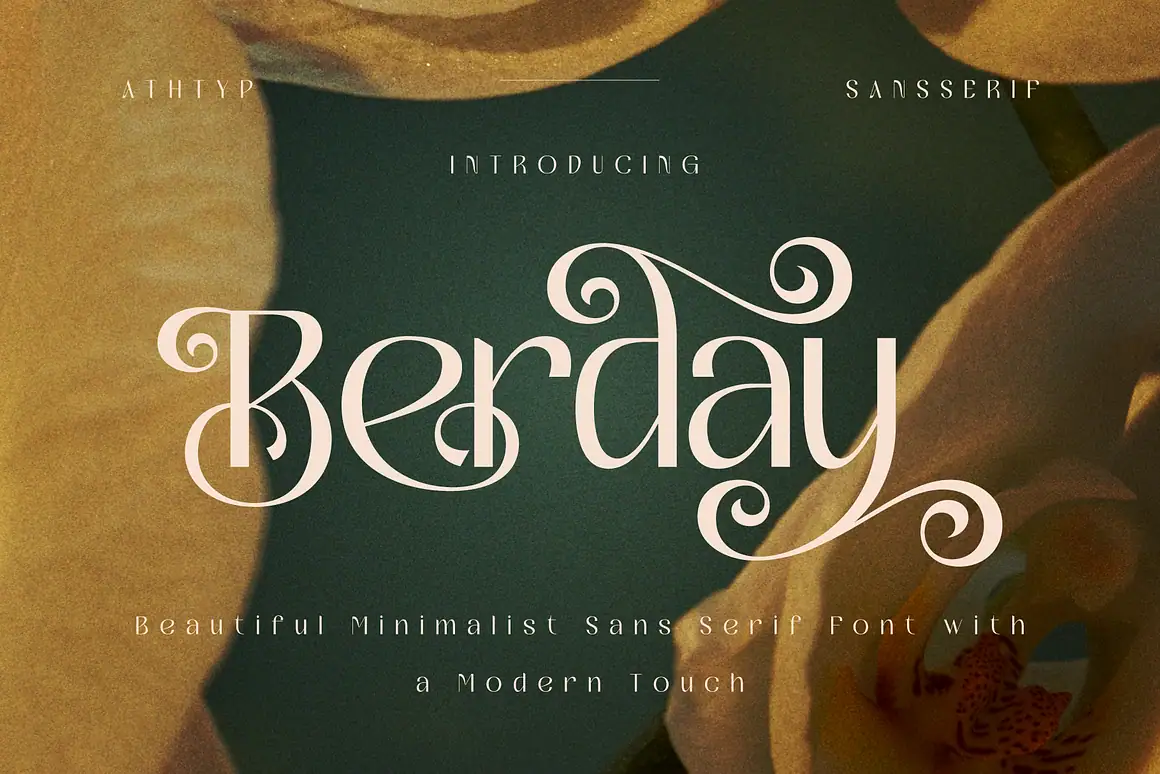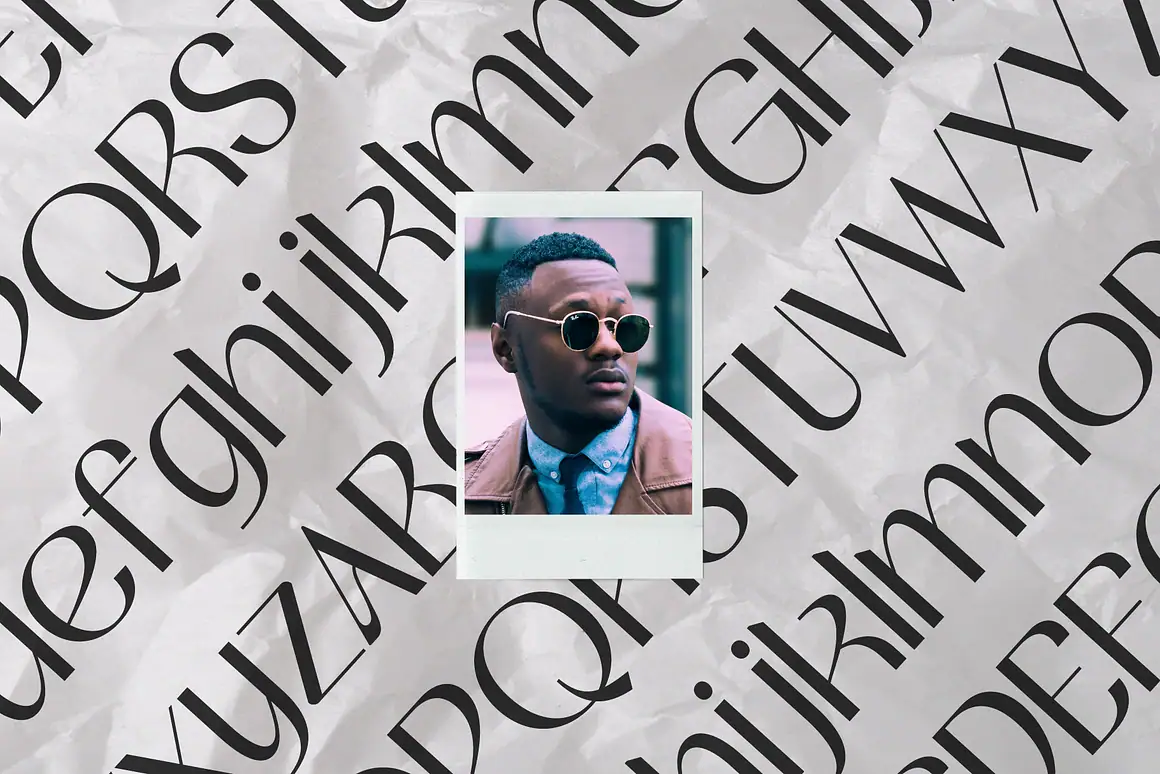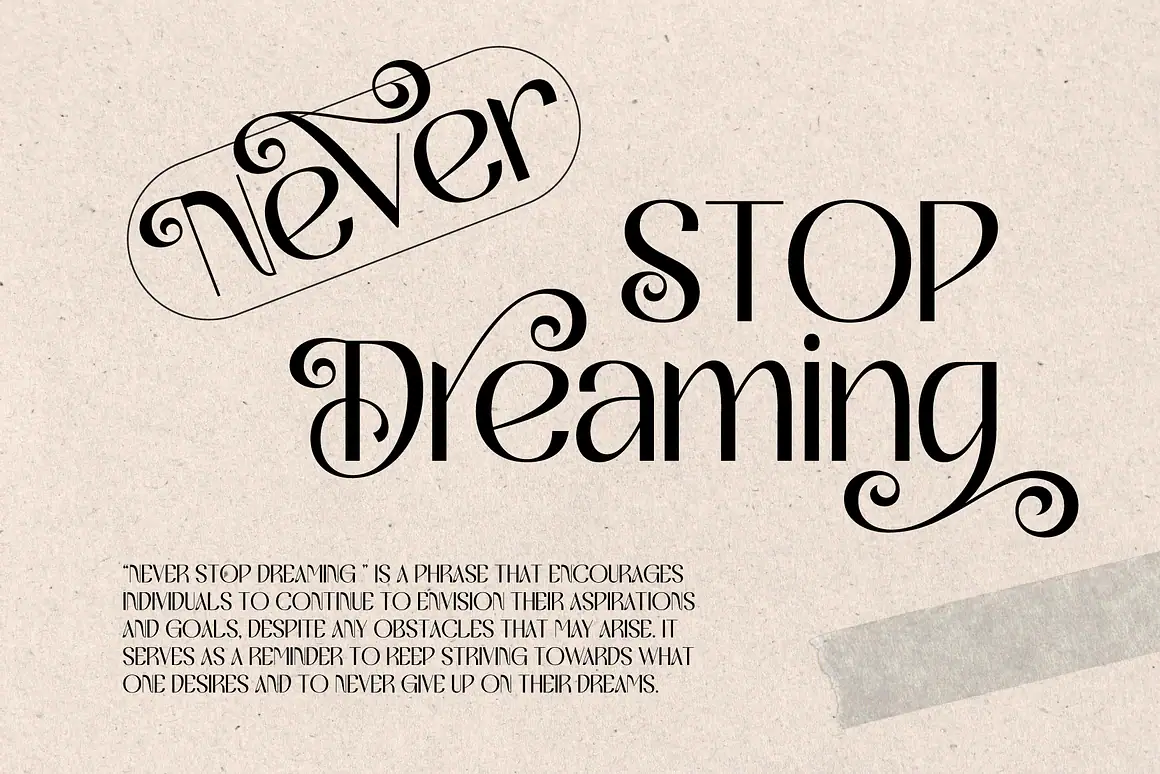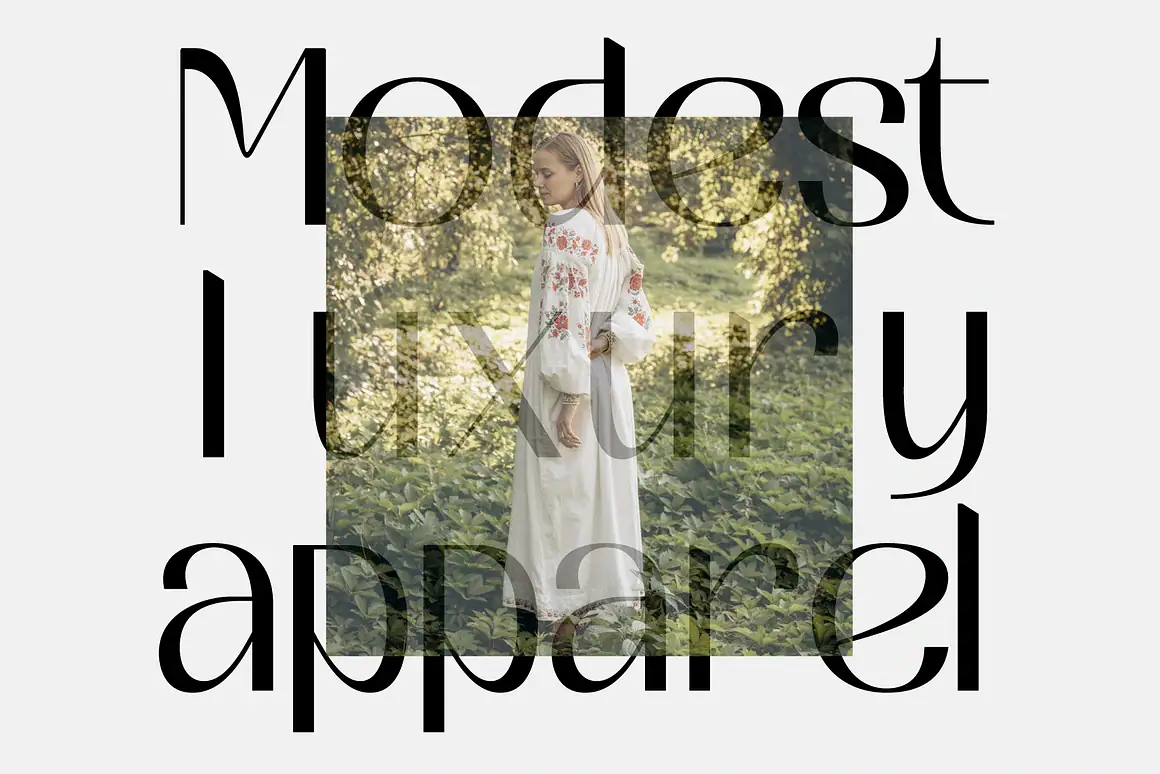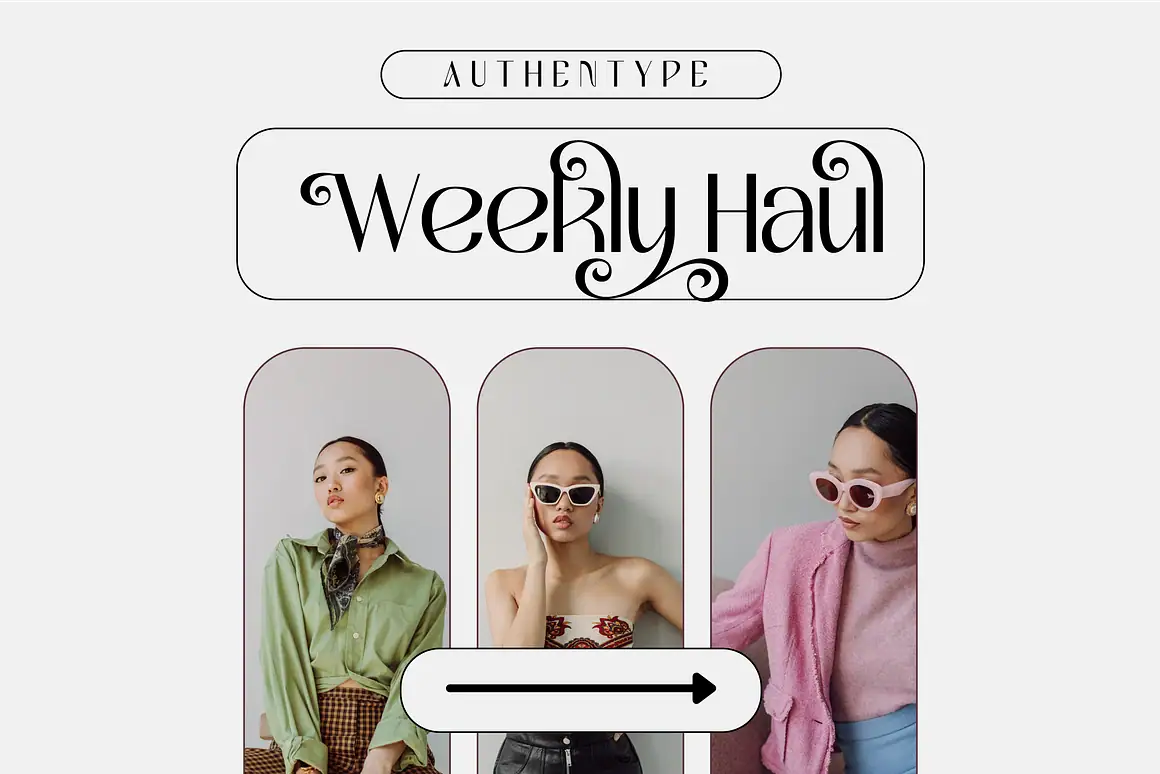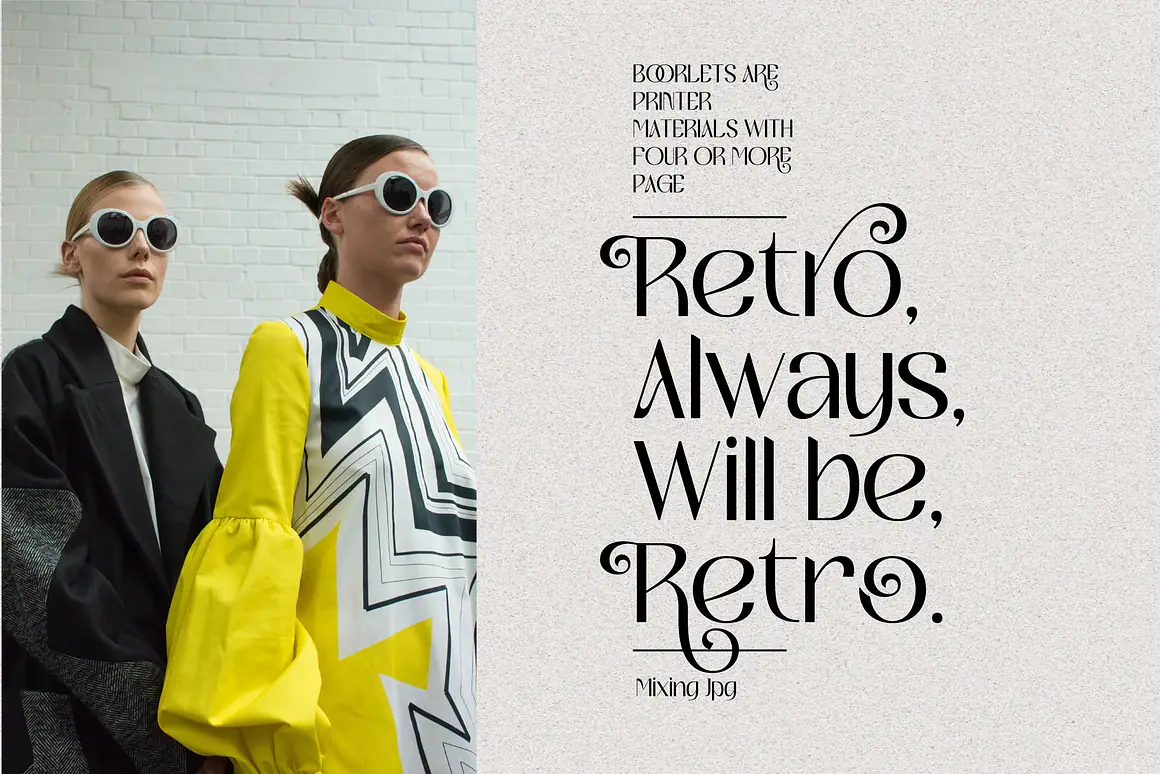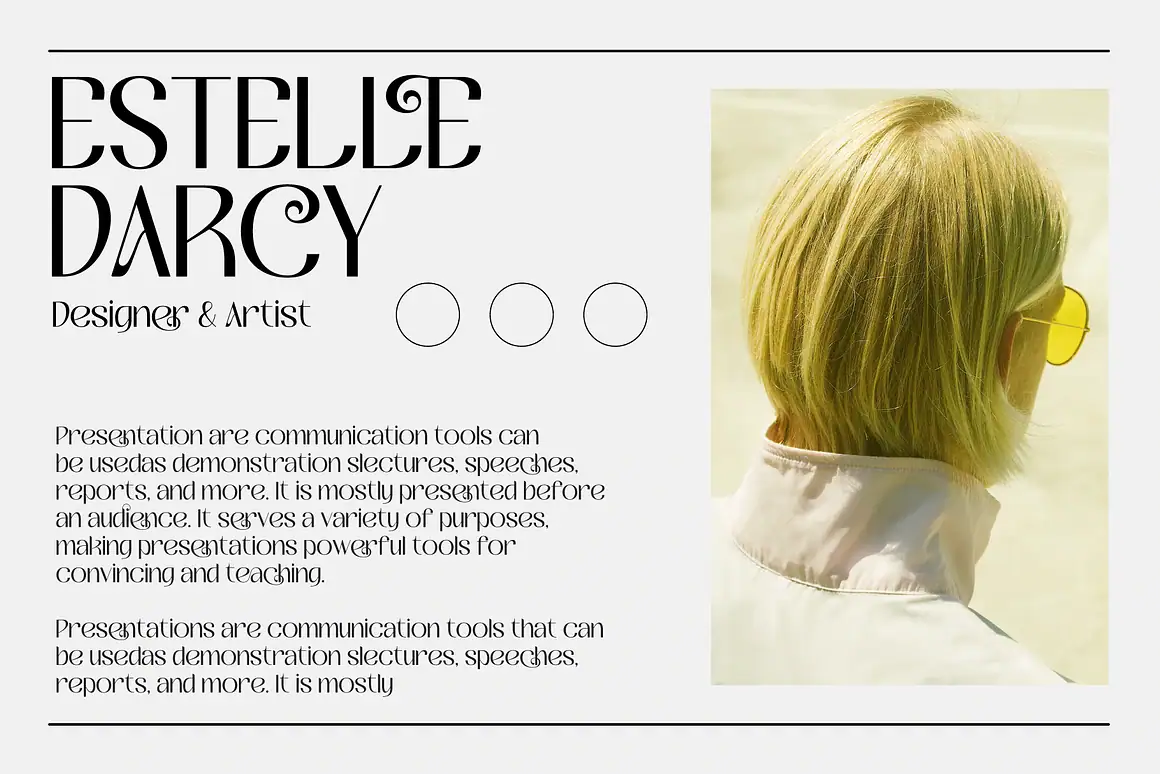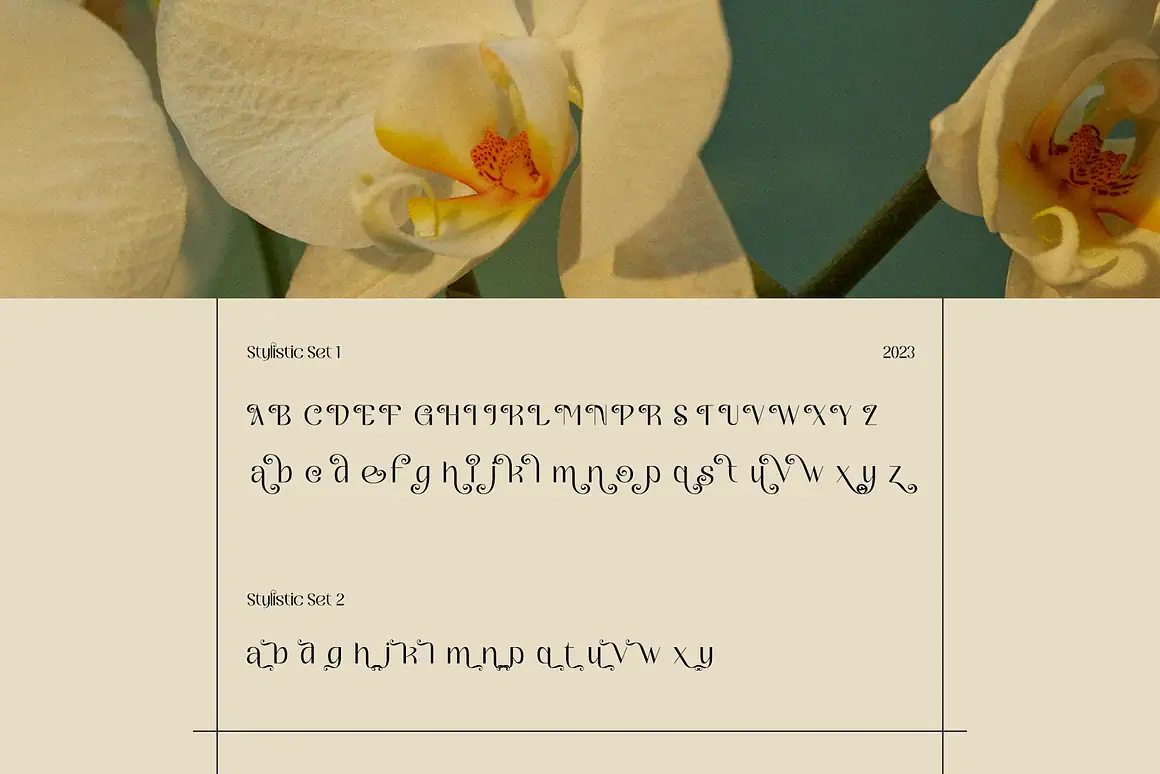
Berday Beautiful Sans Serif
Berday
Berday Beautiful an exquisite typeface that elegantly combines the timeless simplicity of a minimalist sans serif font with a modern twist. Crafted with meticulous attention to detail, this font embodies a sense of refined sophistication while maintaining a sleek and clean aesthetic.
Berday Beautiful stands out with its sleek lines and subtle curves, making it a perfect choice for a wide range of design projects. Whether you’re creating elegant branding, editorial layouts, web design, or packaging, this font brings a touch of contemporary elegance to your work.
Enhanced with thoughtful stylistic features and carefully crafted ligatures, Berday Beautiful allows you to add an extra layer of visual interest and uniqueness to your designs. These subtle variations in letterforms provide harmonious connections between characters, creating a fluid and seamless reading experience.
From crisp headlines to engaging body text, Berday Beautiful’s versatility shines through, making it equally suitable for both digital and print applications. Its minimalist yet modern design ensures legibility while adding a touch of sophistication that captivates the eye.
Choose Berday Beautiful for a font that effortlessly marries timeless simplicity with contemporary charm. Elevate your design projects with its carefully balanced proportions, modern aesthetics, and a touch of typographic finesse that leaves a lasting impression.
Feature:
Standard glyphs modern sans serif uppercase and lowercase letters
Numerals, a large range of punctuation and ligatures
Multilingual support for; ä ö ü Ä Ö Ü ß ¿¡